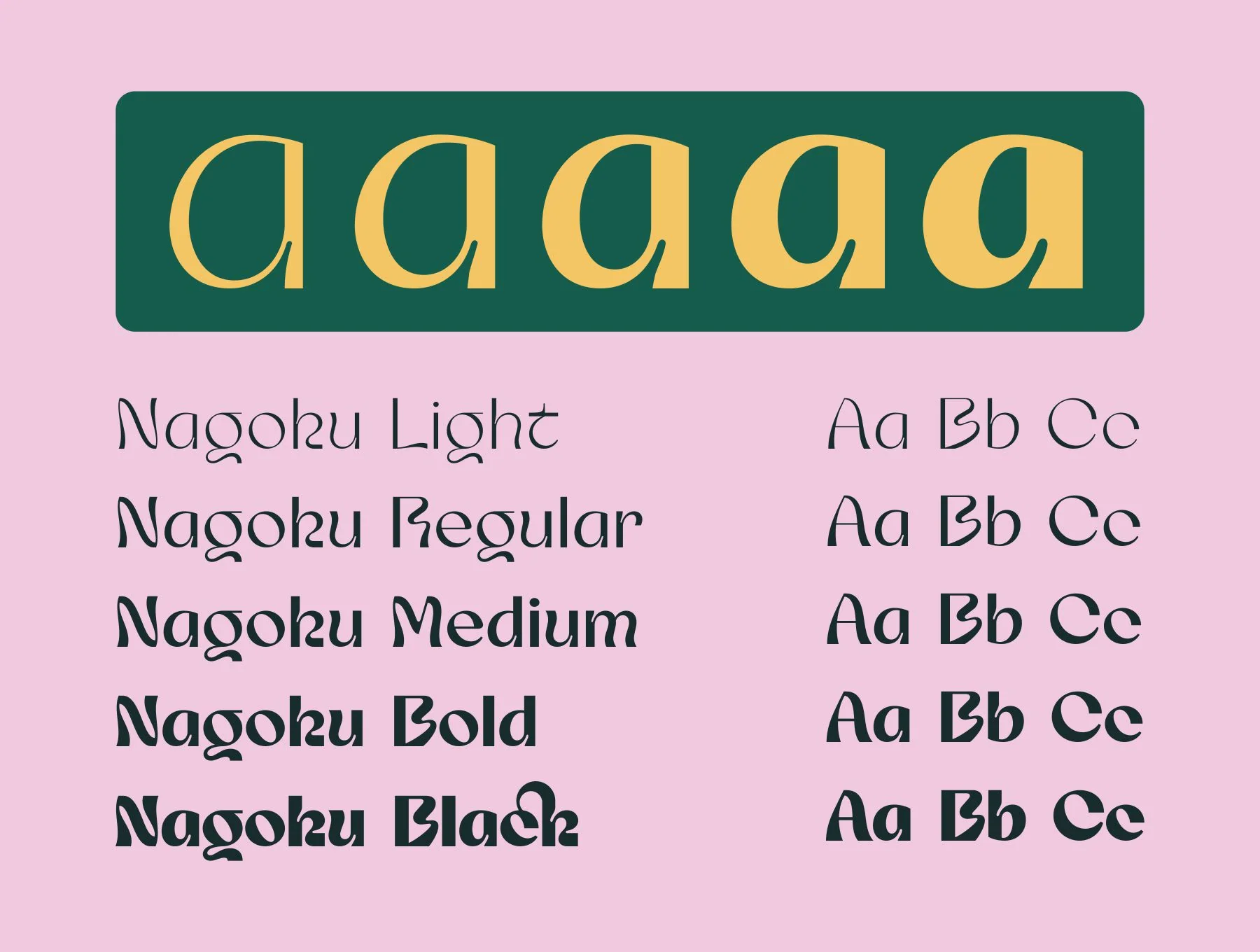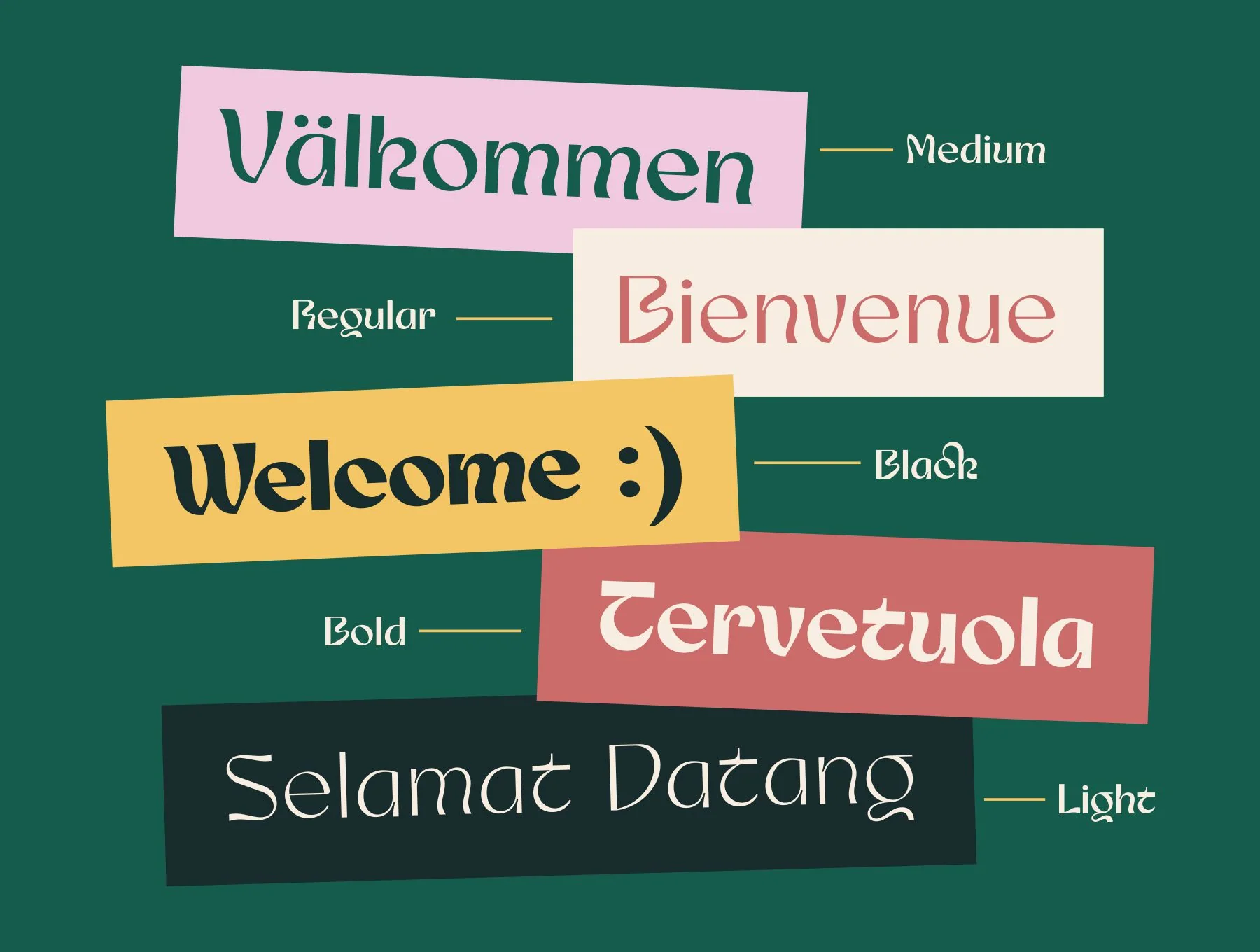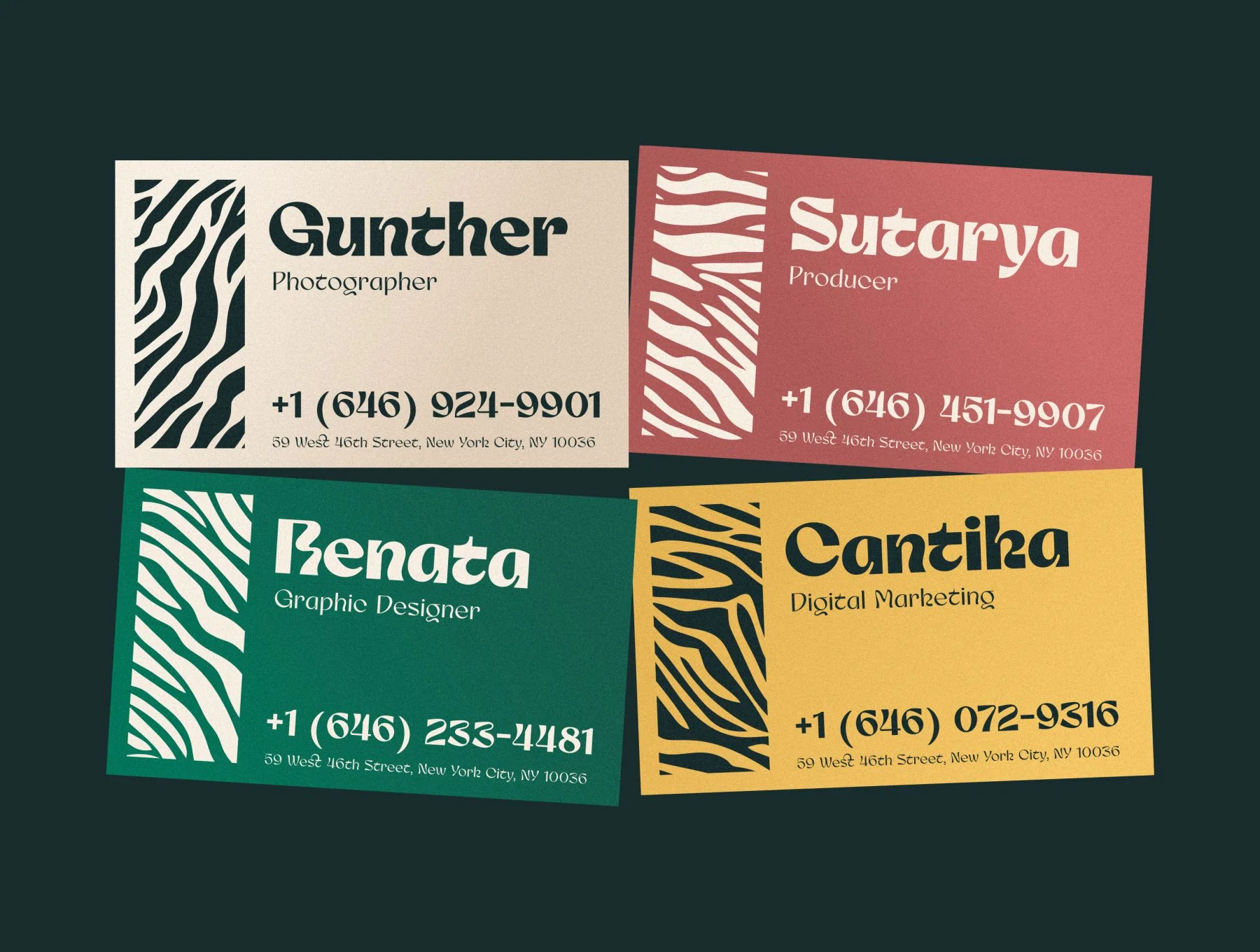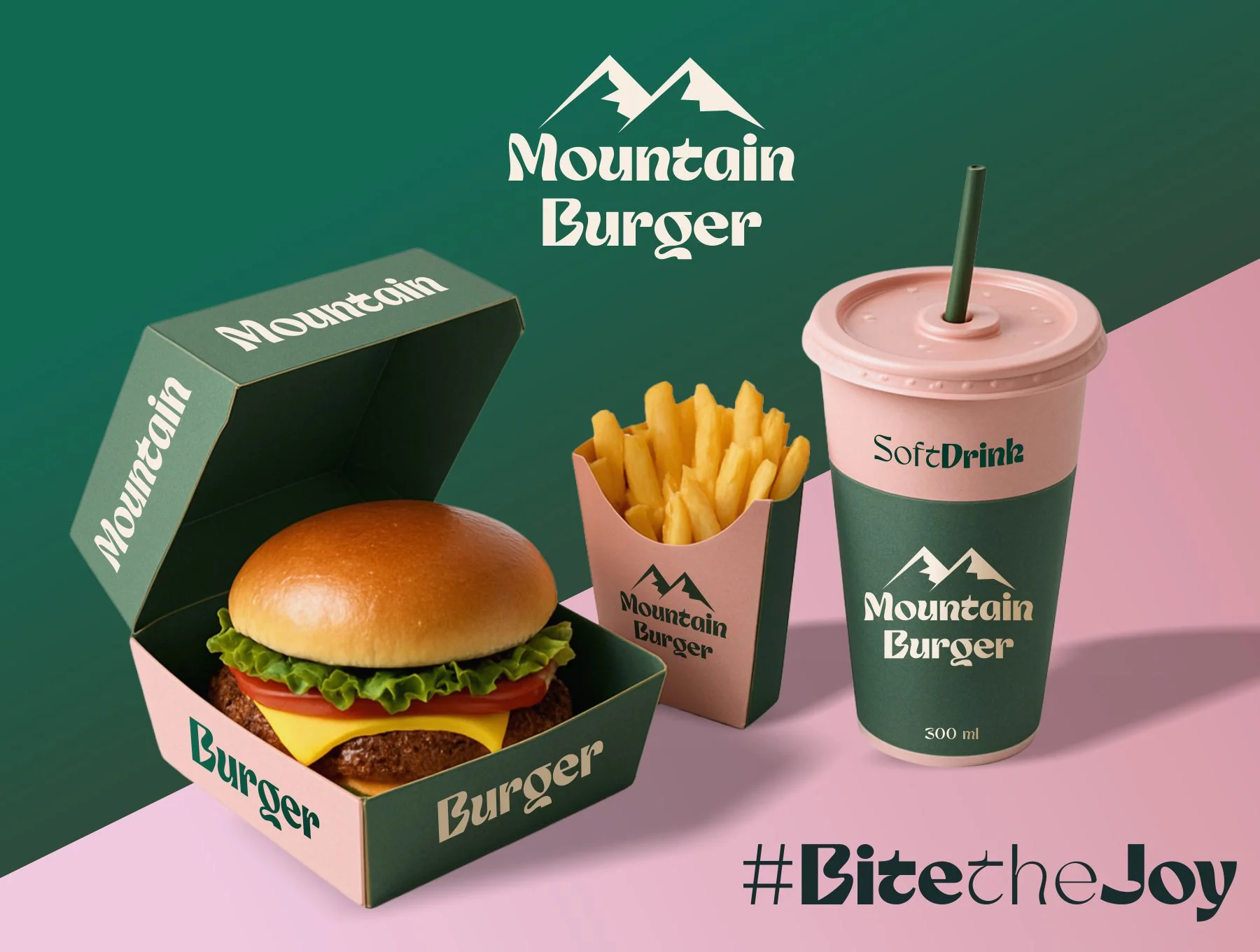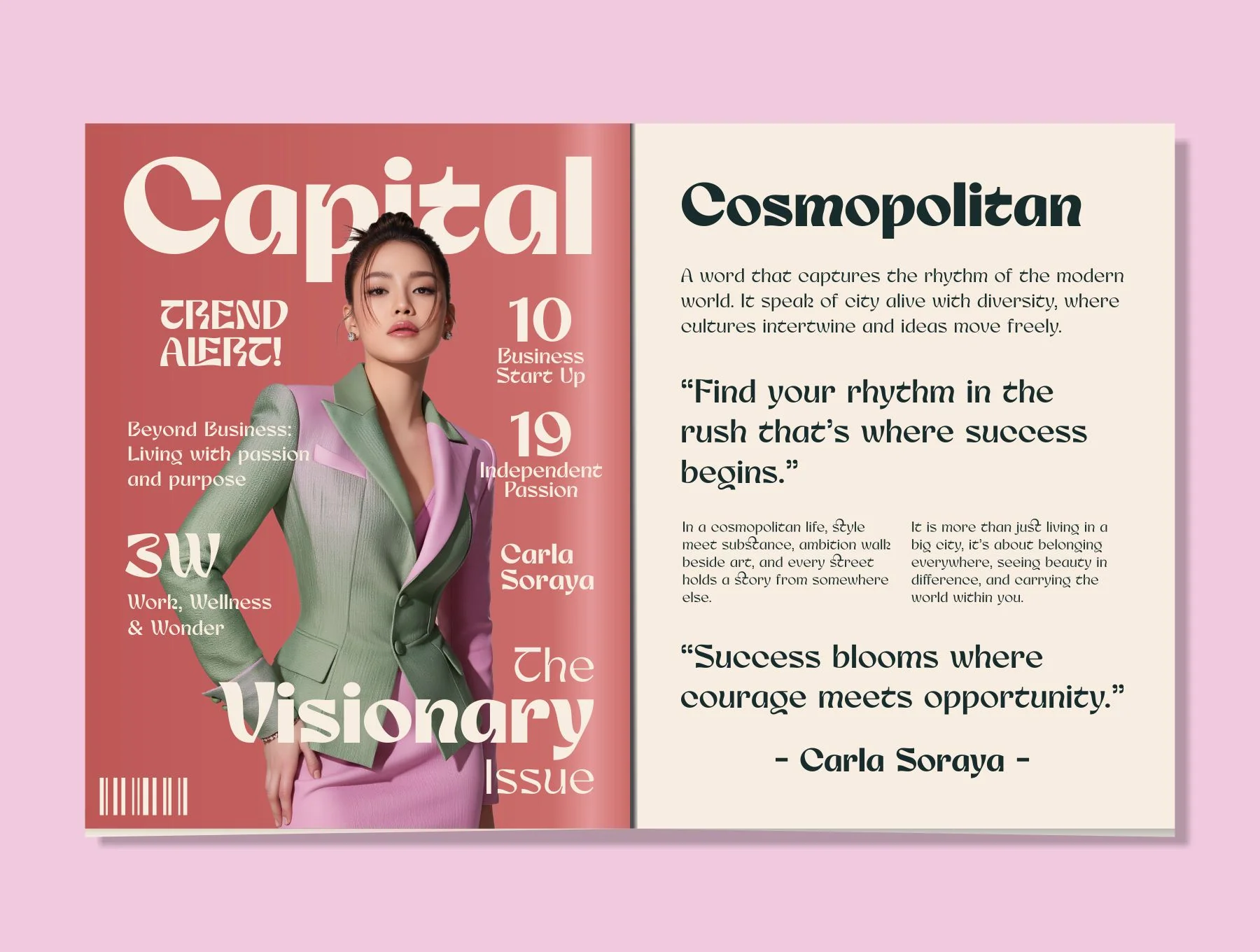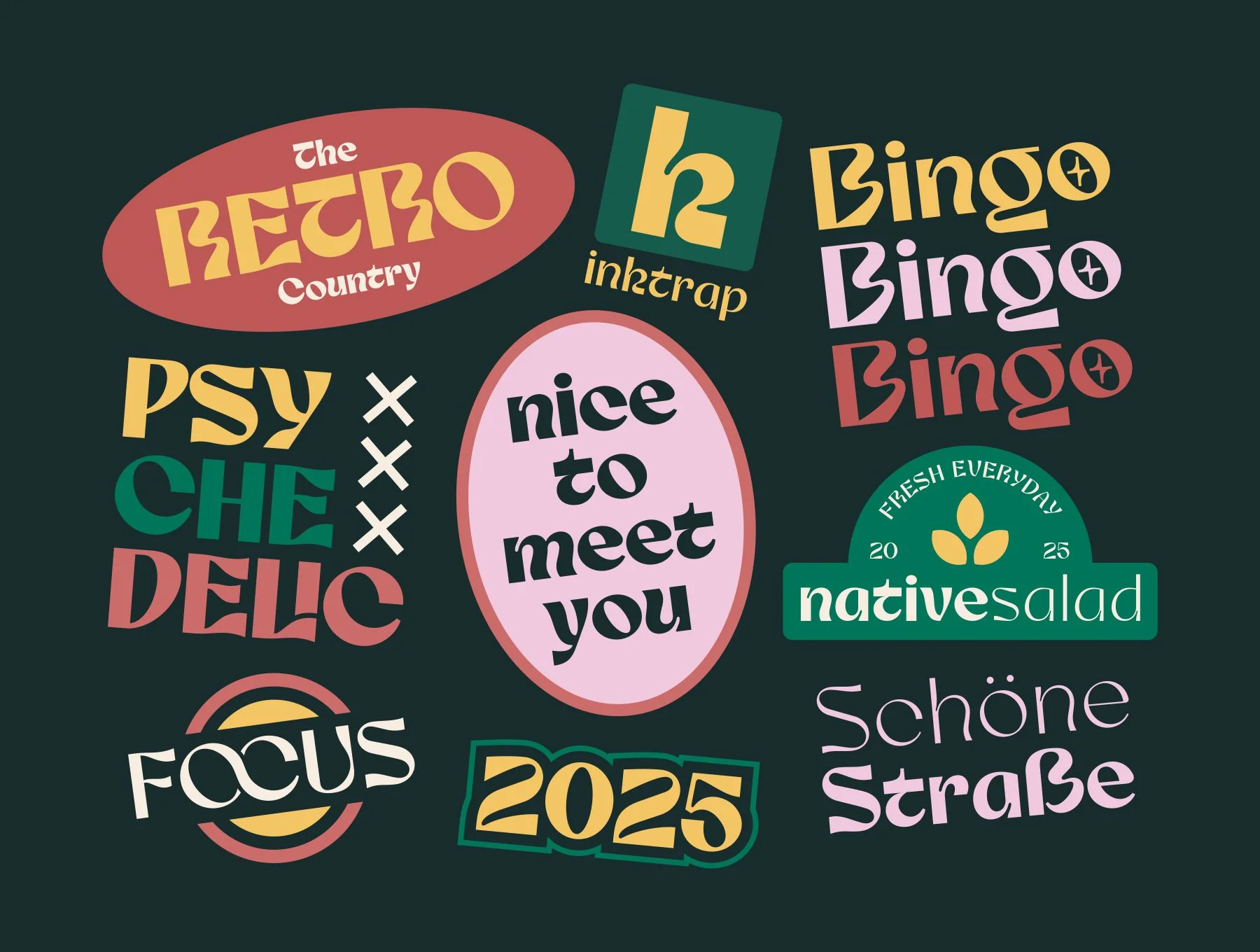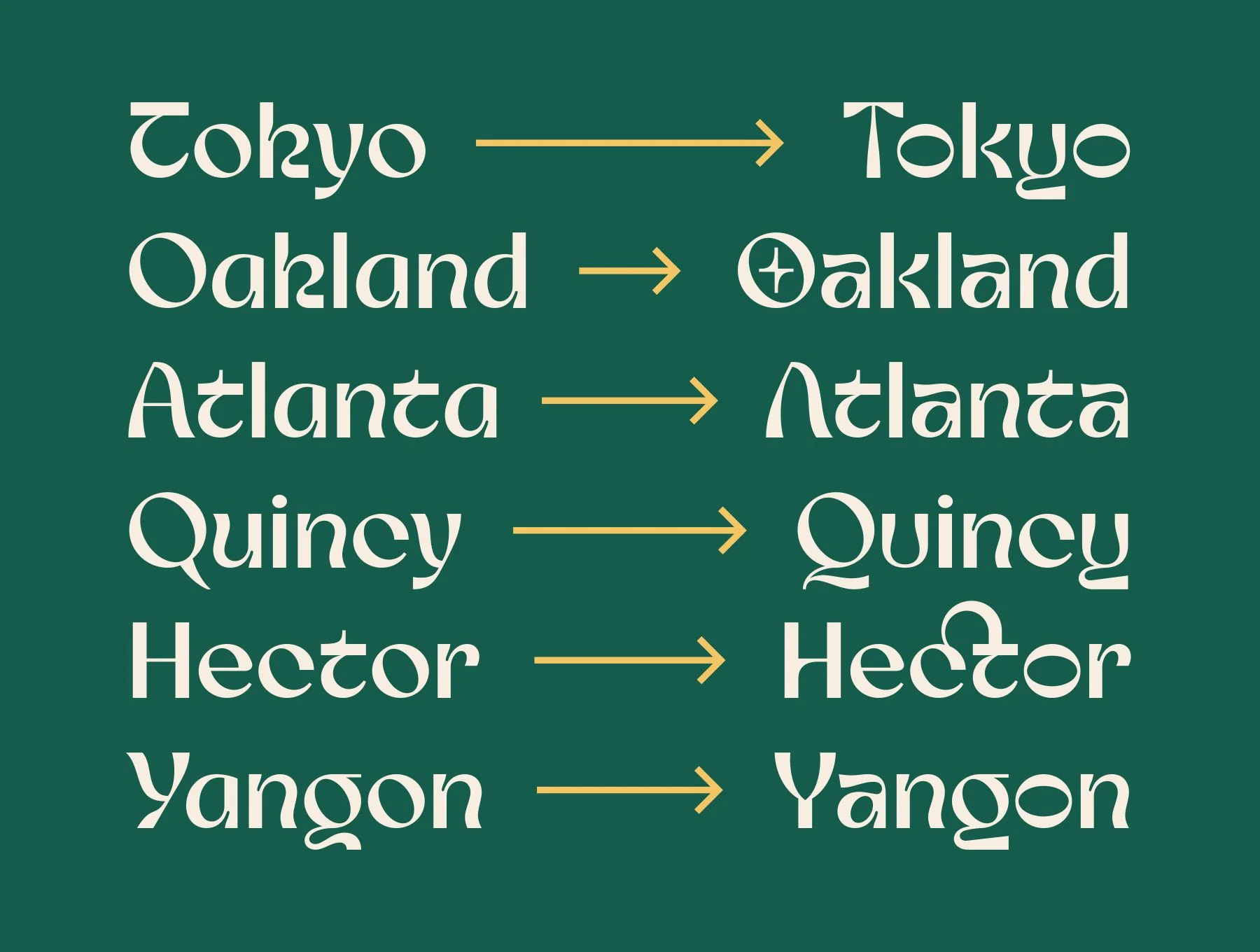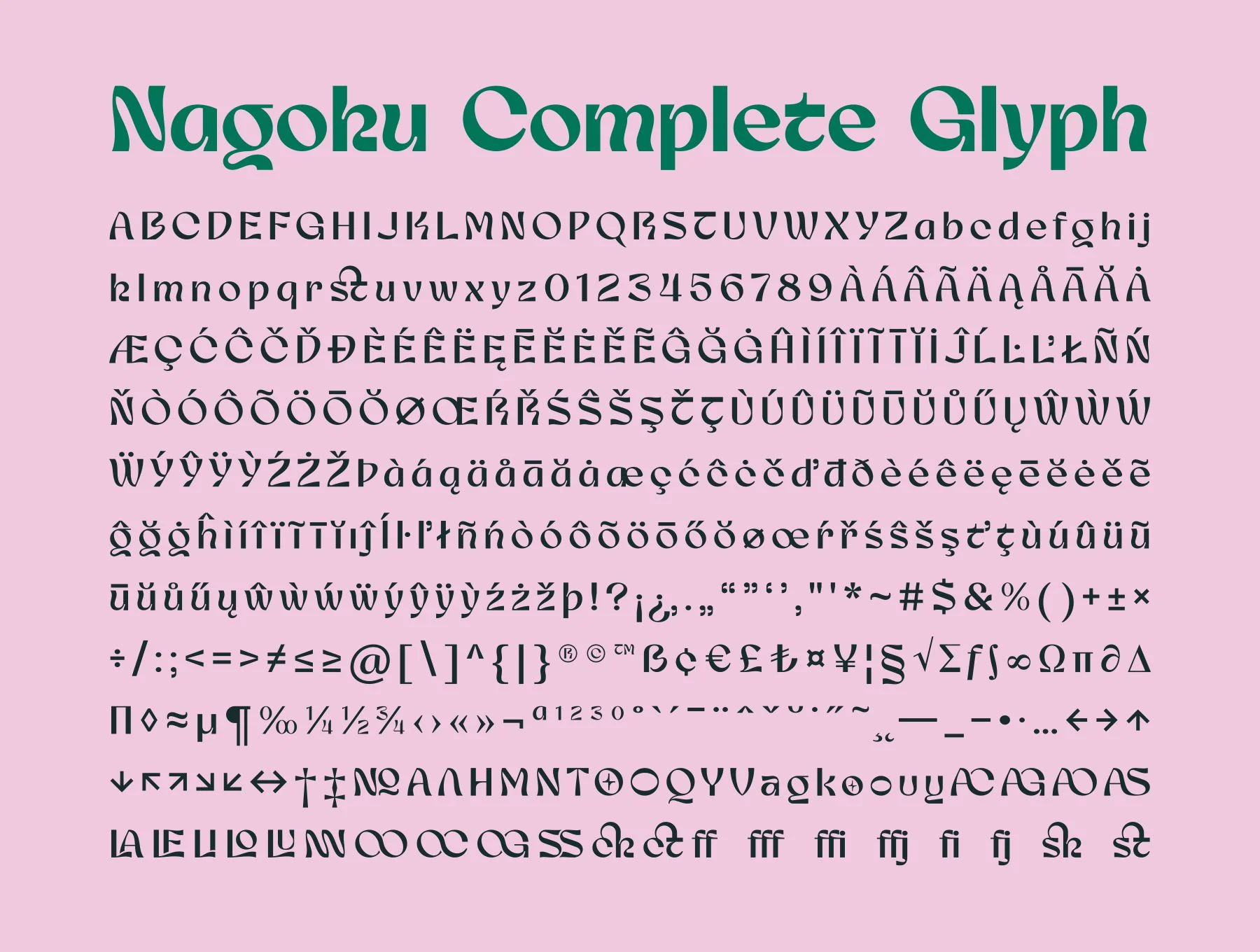
Nagoku Font Family
Ornamental vintage display typeface with 5 styles
5 Typeface Styles
Basic Glyph Set
Decorative Alternates & Ligatures
Nagoku is an ornamental display typeface with a retro spirit and fresh modern style. Gentle inktraps and rounded geometric forms give its characters lively rhythm and expressive personality. Inspired by 1960s–70s poster lettering, it suits logos, titles, packaging, editorials, web, and print. Includes 5 weights, OTF/TTF/WOFF files, standard glyphs, alternates, ligatures, symbols, punctuation, and multilingual support.